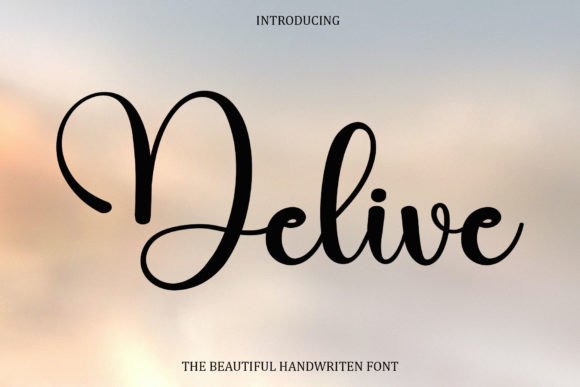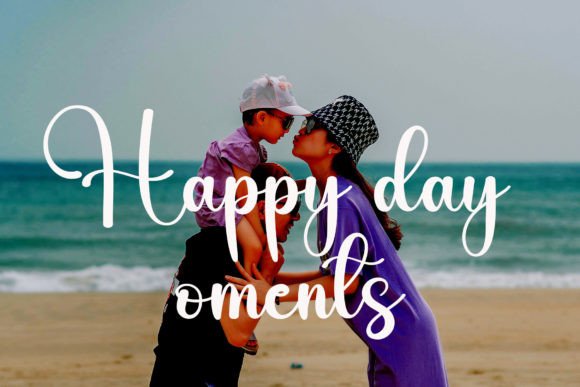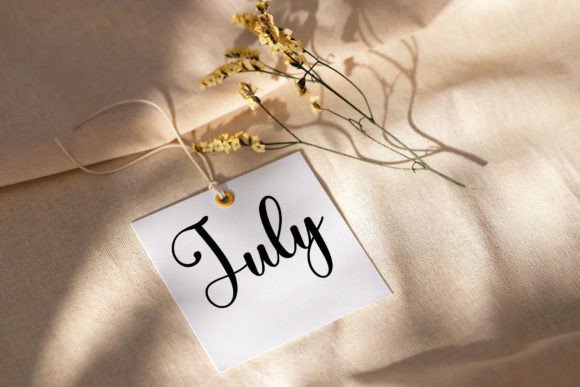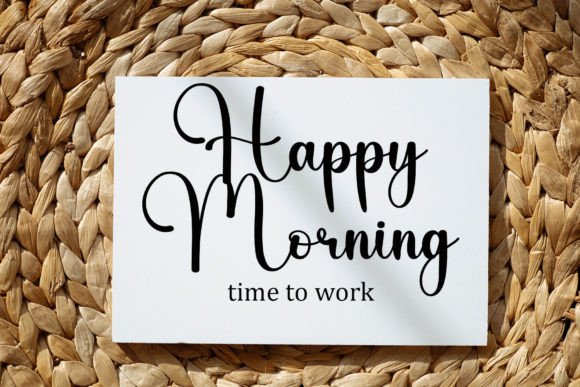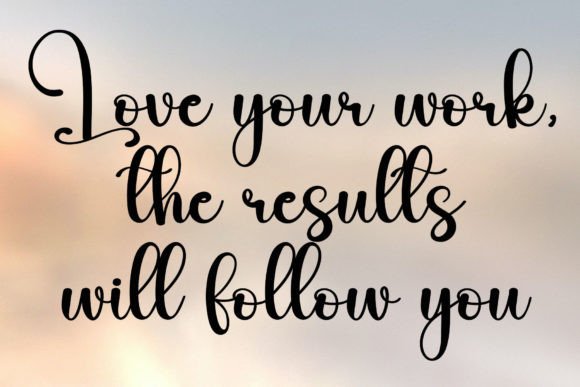
About Delive Font
“Delive” is a sweet and beautiful handwritten font that brings a touch of elegance to your projects. With characters that gracefully dance along the baseline, this font adds a luxurious spark to any design endeavor you wish to undertake.
The charm of “Delive” lies in its handwritten style, where each character is crafted with care and sophistication. The characters’ playful dance along the baseline adds a dynamic and lively quality to the font, making it well-suited for a variety of design projects.
Whether you’re working on invitations, branding, packaging, or any creative endeavor, “Delive” stands out by infusing a sense of luxury into your text. The font’s ability to add a spark of sophistication makes it versatile and suitable for a wide range of applications.
In summary, “Delive” goes beyond being just a font; it’s a design element that brings a sweet and beautiful handwritten style to your projects. Its luxurious spark enhances the overall aesthetic, making it a valuable addition to your toolkit for creating visually appealing and elegant designs.